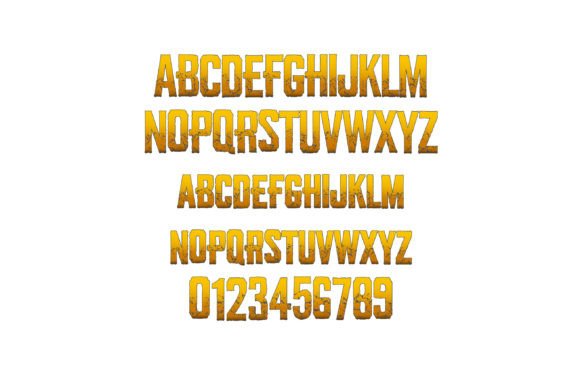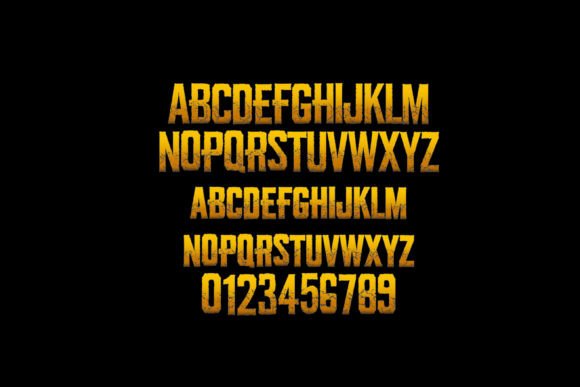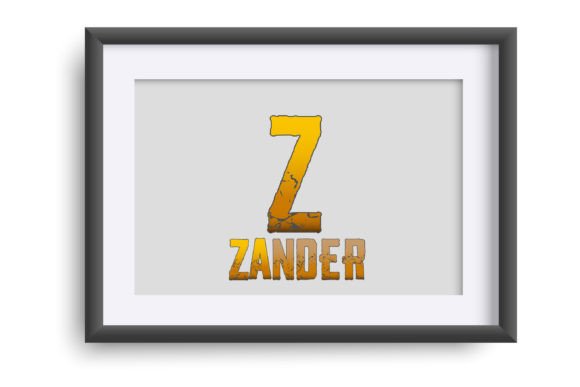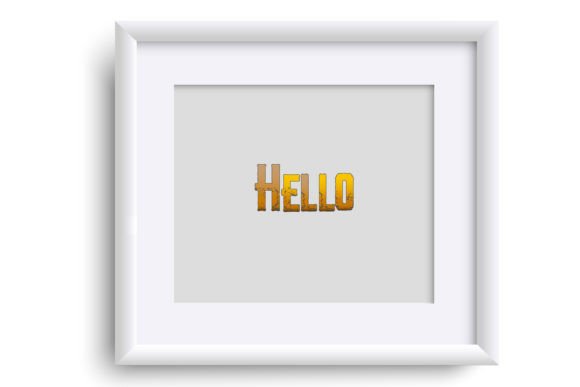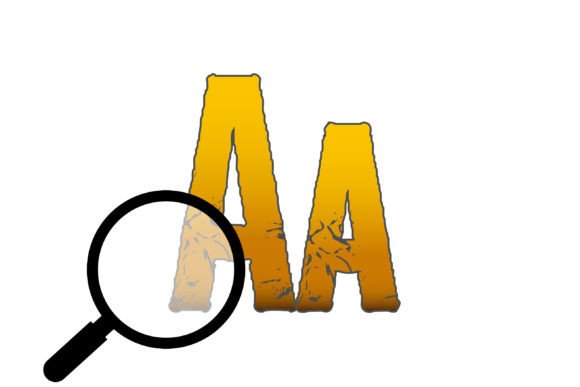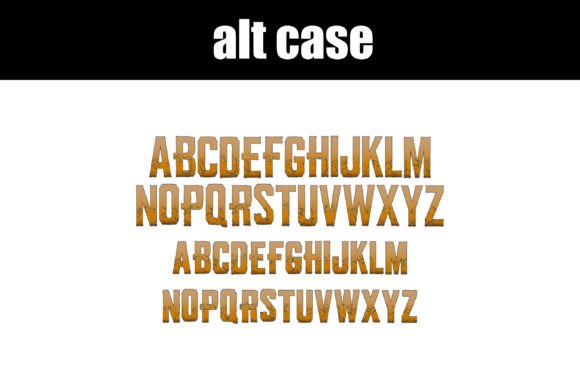
The Perfect Canvas for War-Torn Artistry
Have you ever found yourself in the midst of a creative storm, surrounded by ideas and inspiration, yet struggling to find the perfect font to match the intensity of your vision? That’s where the Battlefield Font comes in – a full-color, grungy, war-torn masterpiece that’s sure to leave a lasting impression.
Designed to evoke the rugged, earthy tones of a war-torn landscape, this font is perfect for designers looking to add an extra layer of depth and emotion to their titles, displays, posters, and more. With its alt case featuring additional colors accessible through your system or Silhouette’s glyph map, the possibilities are endless. Whether you’re a seasoned pro or just starting out, the Battlefield Font is an invaluable tool that’s sure to take your designs to the next level.
Battlefield Font Key Features
- Font Family: The font family for Battlefield Font is not explicitly stated, however, it is believed to be a custom, proprietary font designed by DICE.
- Unique Characteristics: The font features a distressed, weathered look, giving it a unique and tactical feel that suits the Battlefield game series.
- Legibility: The font is designed to be highly legible, even at small sizes, making it suitable for use in a variety of contexts, including in-game UI and menus.
Battlefield Font Review
Overall, I’d say the Battlefield Font is a solid addition to any design arsenal, but it has its strengths and weaknesses.
- Unique and bold character set that captures the essence of a war-torn battlefield.
- Great for titles and headings where you want to draw attention.
- The font’s rough texture adds a sense of grit and realism.
- Not ideal for large blocks of text, as the font’s boldness can be overwhelming.
- May not be suitable for projects requiring a more subtle or elegant feel.
- Some letters may appear difficult to read at smaller font sizes.
The Battlefield Font is perfect for projects that require a bold and rugged aesthetic. It’s great for titles, headings, and any other elements where you want to make a statement. However, it may not be the best choice for more delicate or intricate designs. With some careful use and consideration, the Battlefield Font can add a unique touch to your designs.
Getting the Most Out of the Battlefield Font
To get the most out of the Battlefield Font, consider the following tips:
– Use it for titles and headings to create a strong visual impact.
– Experiment with different font sizes and colors to achieve the desired effect.
– Pair the Battlefield Font with other fonts to create a unique and visually appealing design.
The Battlefield Font is commonly used for:
– Military-themed designs
– Action-packed movie and video game titles
– Strong and bold headings for marketing materials
Alternatives to Battlefield Font for Designers
Fontin is a sans-serif font designed by Eben Sorkin in 2002. It is a clean and modern font suitable for digital use. When to use: Fontin is ideal for body text in digital interfaces, such as websites and mobile apps.
Comparison to Battlefield Font: Fontin has a more rounded and friendly appearance compared to the bold and geometric look of Battlefield Font.
Open Sans is a popular sans-serif font designed by Steve Matteson in 2010. It is highly legible and suitable for a wide range of applications. When to use: Open Sans is ideal for body text in digital interfaces, as well as for headlines and titles.
Comparison to Battlefield Font: Open Sans has a more neutral and clean appearance compared to the bold and aggressive look of Battlefield Font.
Avenir is a geometric sans-serif font designed by Adrian Frutiger in 1988. It is a highly legible font suitable for digital use. When to use: Avenir is ideal for body text and headlines in digital interfaces, as well as for print materials.
Does the Battlefield Font support ligatures and other advanced features?
Yes, the Battlefield Font supports ligatures, contextual alternates, and other advanced features. These features are enabled by default in most design software, but you can also customize the font settings to turn them on or off as needed.